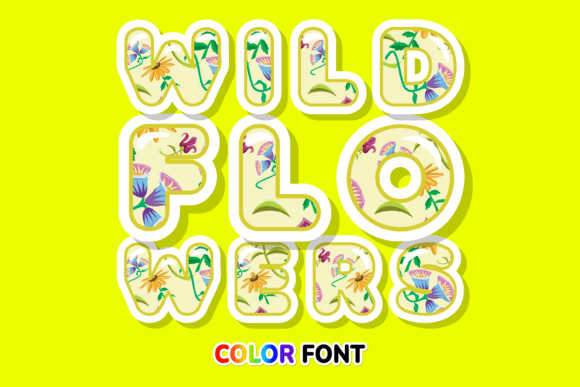
Embark on a visual escapade adorned with nature's splendor with Wild Flowers Font, a captivating creation from JUSTTYPE. This extraordinary color font exudes a botanical charm that breaths life into your creative endeavors. Whether you're crafting custom designs, engaging in DIY projects, or seeking a touch of elegance, Wild Flowers Font will be your trusty companion.
Immerse yourself in a palette of vibrant hues, unveiling a world of possibilities. Let your imagination bloom with this color font, intricately designed to awaken your senses and captivate your audience. Each character dances gracefully, brimming with organic beauty, ready to transform your designs into captivating masterpieces.
Transport yourself to a realm of creativity where your ideas flourish and your designs blossom. Wild Flowers Font empowers you to infuse your projects with a touch of whimsy, charm, and sophistication. Its vibrant hues and elegant lines will effortlessly elevate any creation, leaving a lasting impression on all who encounter it.
Experience the magic of Wild Flowers Font today and unlock your creative potential. Let your imagination run wild, explore new horizons, and witness the transformation of your designs into captivating works of art. Embrace the beauty of nature and let your projects flourish with Wild Flowers Font.